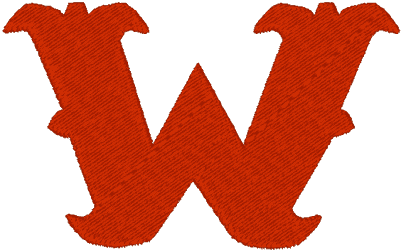
Saloon Font Alphabet
Can You Hear the Honky Tonk?
Belly up to the bar, dust off your chaps and have a shot of red eye to wash that dusty trail out of your gullet. You'll have a lot of fun with this Old West alphabet. How 'bout another shot of red eye?